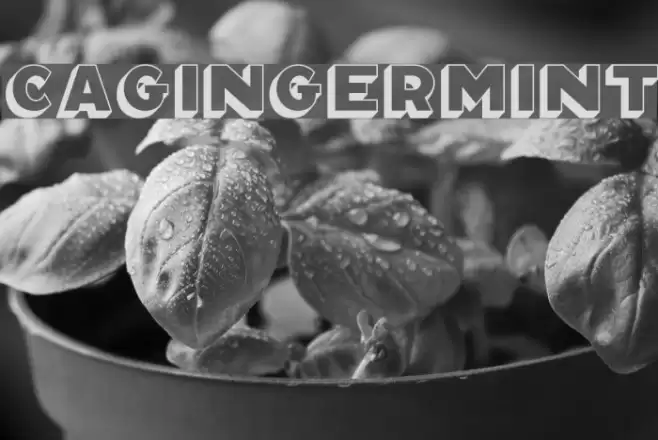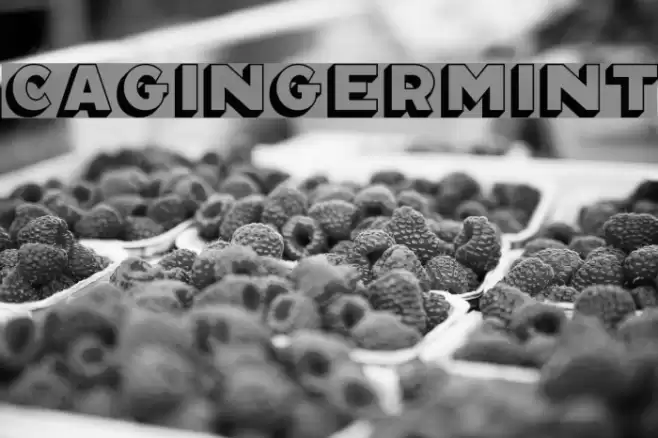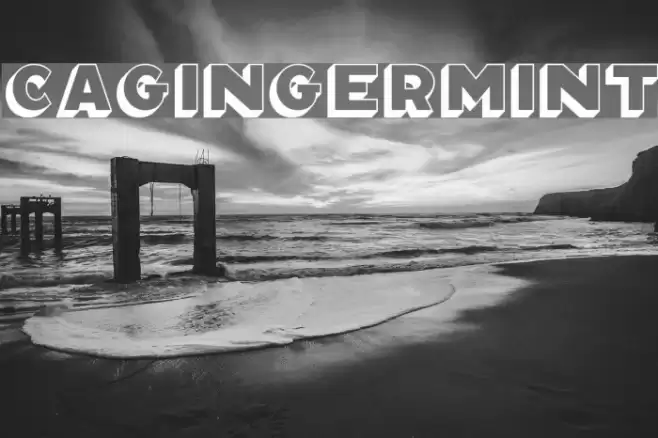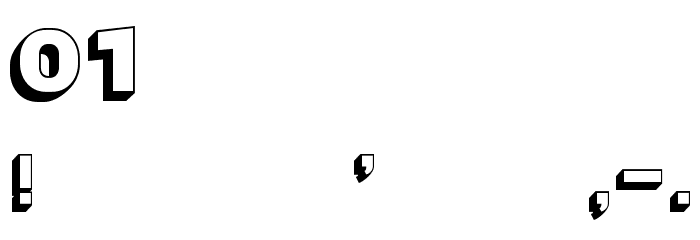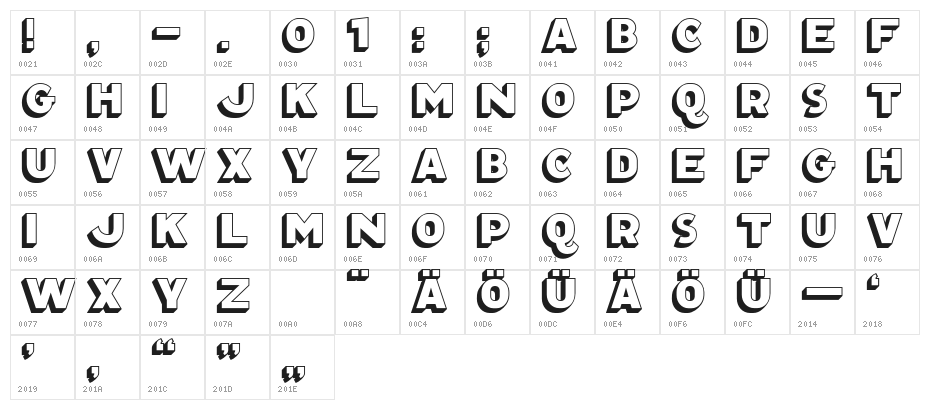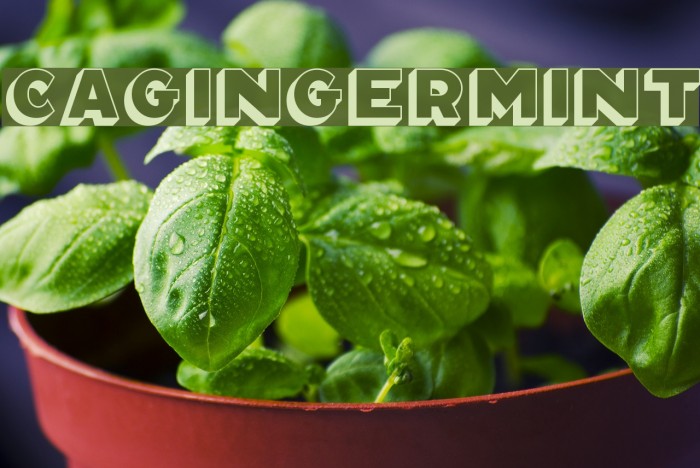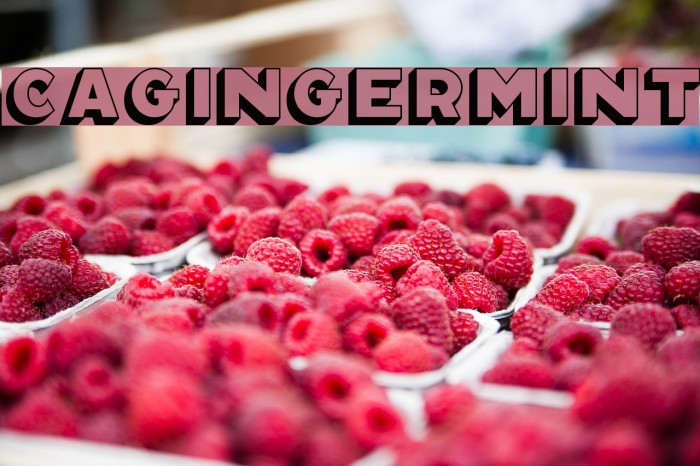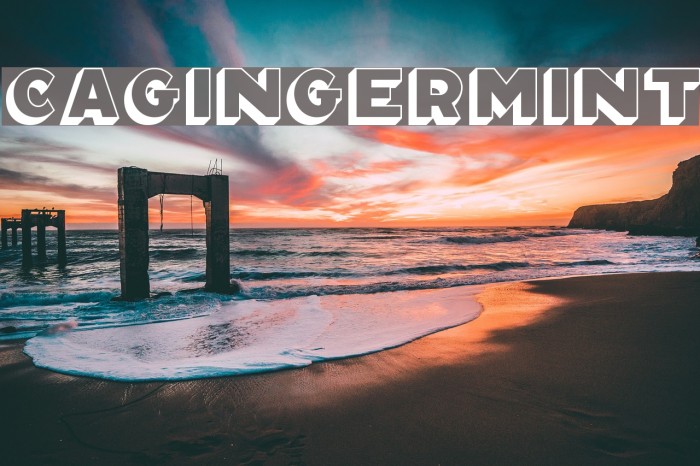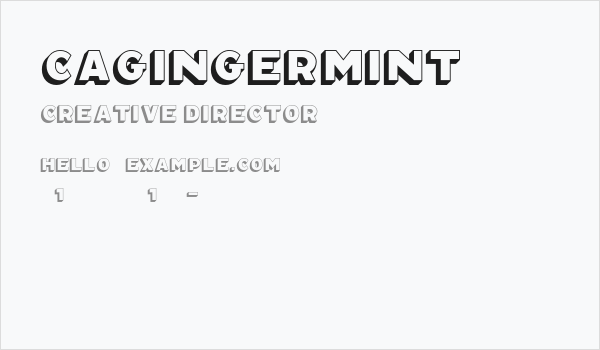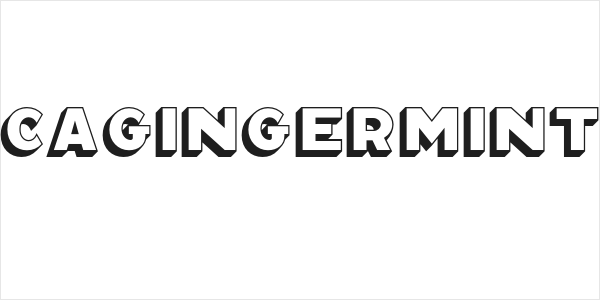
CAGingerMint Font
CAGingerMint Description
This font features a bold and playful 3D effect, with a strong shadow that gives each character a sense of depth and dimension. The uppercase letters are blocky and robust, while the numbers and special characters maintain the same bold style. The font's design is eye-catching and ideal for making a statement, with each letter standing out due to the thick outlines and shadowing. The overall appearance is modern and dynamic, suitable for projects that require a bold visual impact.
- Proposed Projects: Ideal for posters, headlines, logos, and any design needing a bold, attention-grabbing typeface.